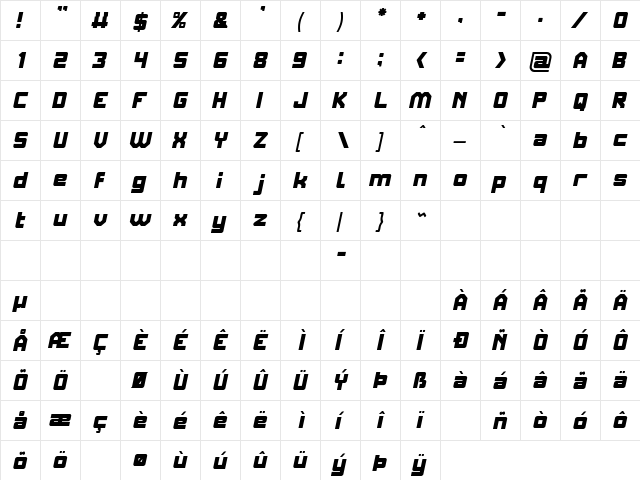
ELITE MIND Italic
Design Context for ELITE MIND Typeface
ELITE MIND takes a measured approach to typography — its balanced proportions and neutral character make it a reliable workhorse for both digital and print work. Its italic angle brings a sense of urgency and motion to the letterforms.
Pro Tip: Try ELITE MIND for annotation and caption copy alongside an upright companion — the contrast in angle creates a dynamic but ordered typographic system.